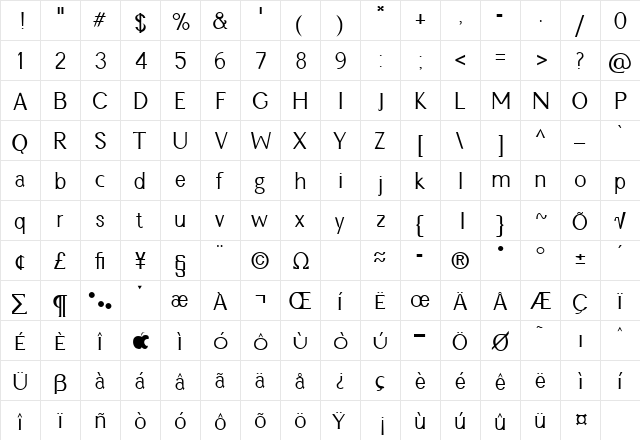
Kathlita.fog fog
Design Context for Kathlita.fog Typeface
Kathlita.fog offers clean, dependable letterforms without strong stylistic allegiance, making it a practical choice for designers who need flexibility.